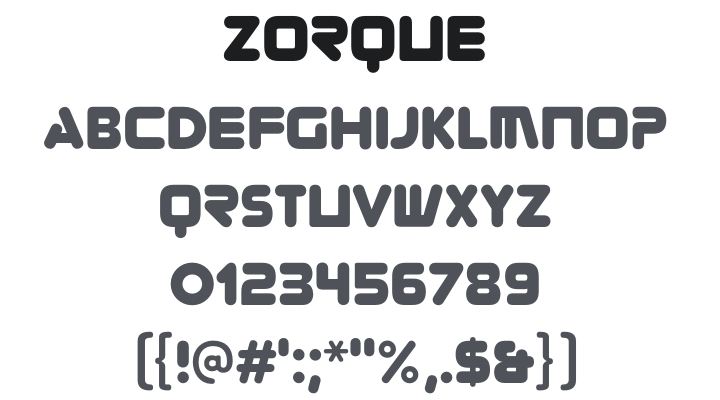
Zorque Font
About Zorque
Zorque is a bold, rounded-square sci-fi display typeface inspired by the classic Infocom logo — the same letterforms that graced legendary text adventure games like Zork. Its chunky, uniformly thick strokes with softly rounded corners balance retro-gaming nostalgia with clean futuristic confidence. Perfect for game titles, retro computing tributes, sci-fi interfaces, tech branding, and any headline channeling the golden age of text adventure gaming.